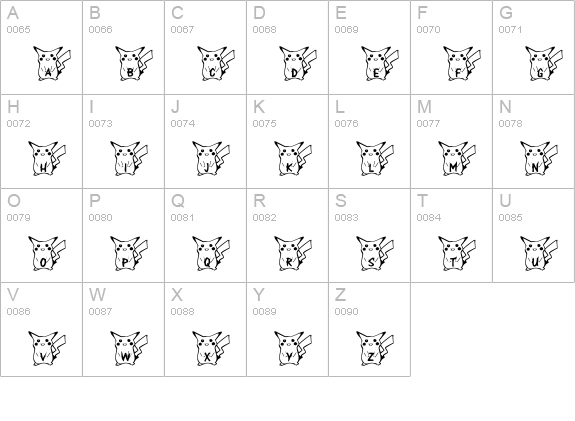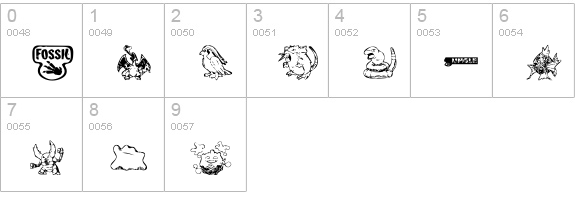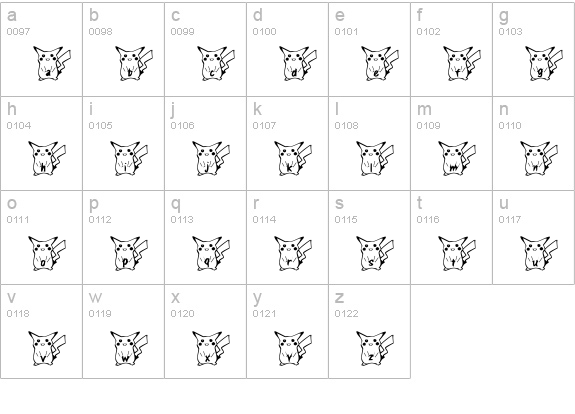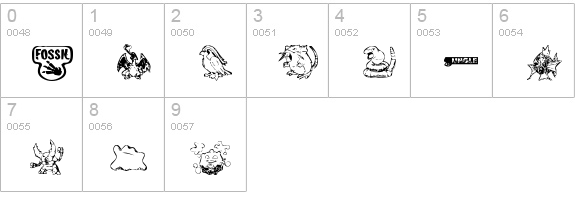
Pika Pika Font Details
Introducing Pika Pika, a mesmerizing and playful font that will add a touch of whimsy to any project. With its unique and eye-catching design, Pika Pika is perfect for creating attention-grabbing headlines, logos, posters, and more. The Pika Pika font is a delightful combination of boldness and elegance. Its rounded edges and slightly irregular letterforms give it a charming and handmade feel, making it perfect for adding a personal touch to your designs. This font is not only visually appealing but also highly versatile. Whether you are designing for a children's book, a fashion brand, or a trendy café, Pika Pika will effortlessly adapt to any style or theme. One of the best parts about Pika Pika font is that it is completely free to download. Yes, you heard that right! You can get your hands on this fantastic font without spending a dime. Simply head over to FontsMarket.com, where Pika Pika is freely available for download. So why wait? Give your designs a burst of energy and creativity with Pika Pika font. Download it today and let your imagination run wild!